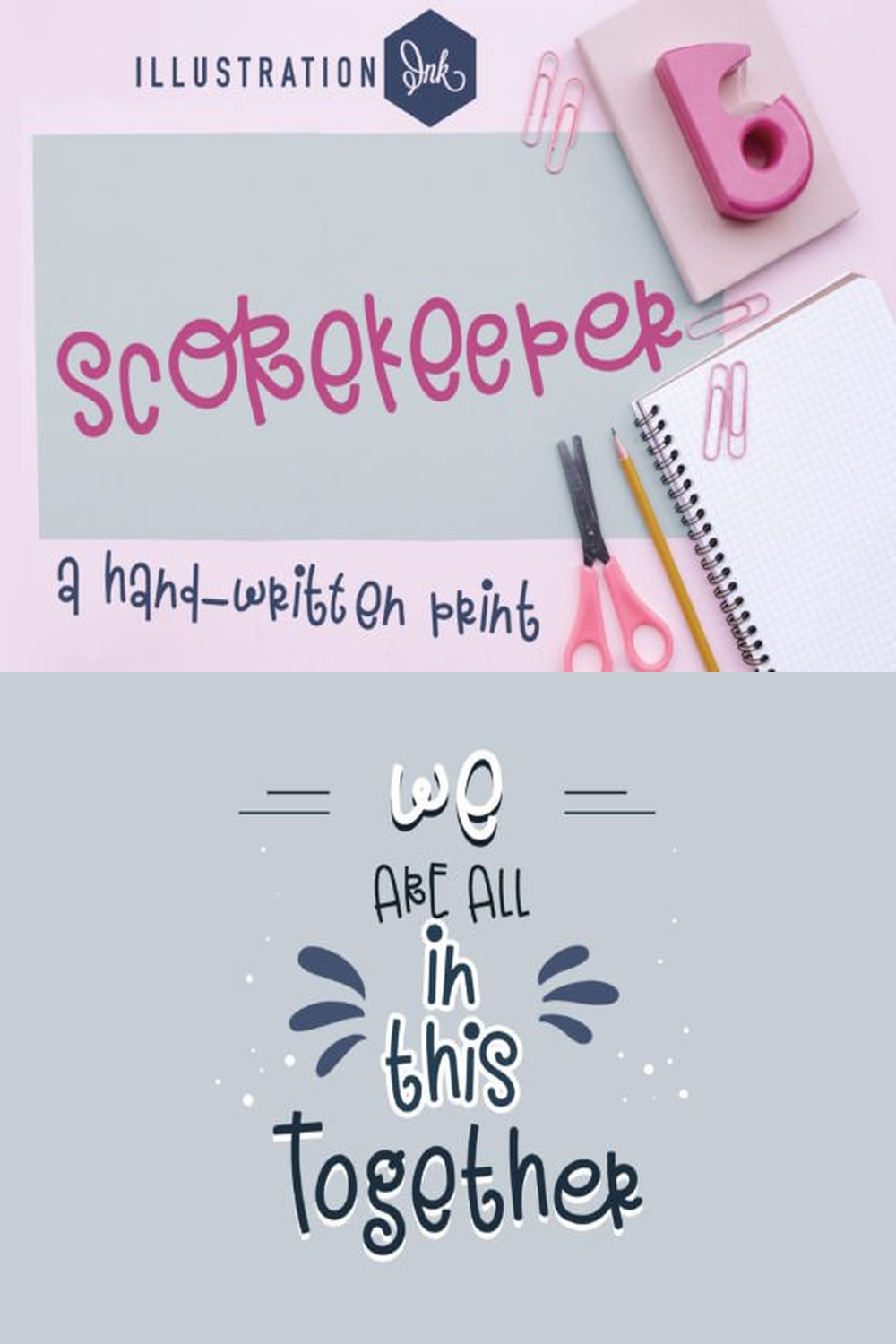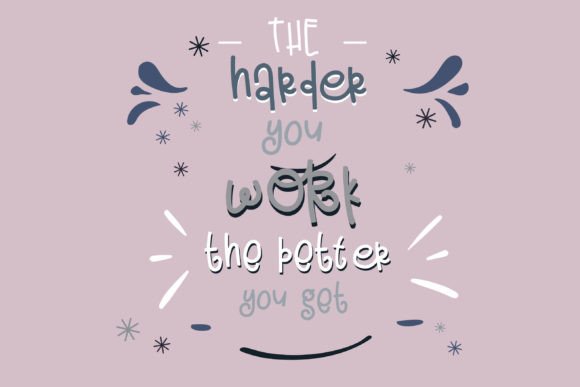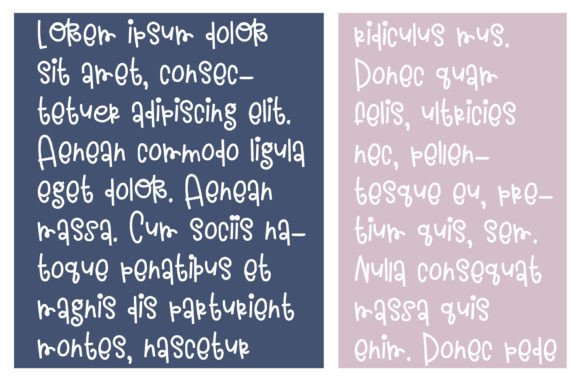
Scorekeeper Font
About the Scorekeeper Font
Crafted with precision, the Scorekeeper Font is ready to bring your ideas to life. This hand-crafted sans serif is a fun and whimsical font with a bit of curl.